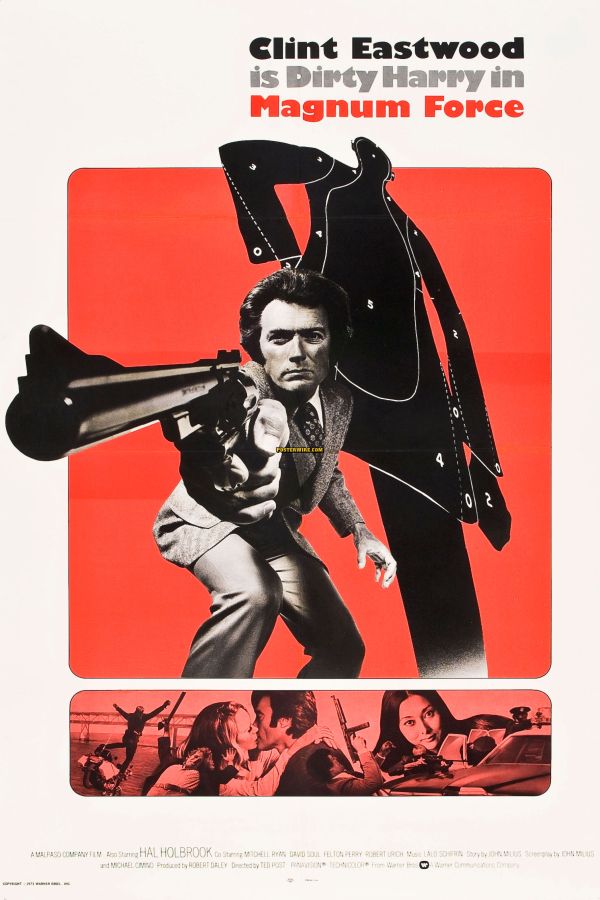
Magnum Force Font
ActionMagnum Force is a 1973 American action thriller film directed by Ted Post and starring Clint Eastwood as Inspector "Dirty" Harry Callahan. The film is the second installment in the Dirty Harry film series, and follows Callahan as he investigates a series of murders committed by a group of rogue police officers known as the "Magnum Force."
Magnum Force movie title on the poster features Gill Sans Ultra Bold, a humanist sans by Eric Gill in 1928. More details about the typeface can be found here.